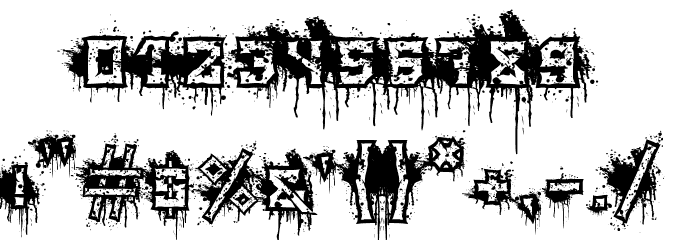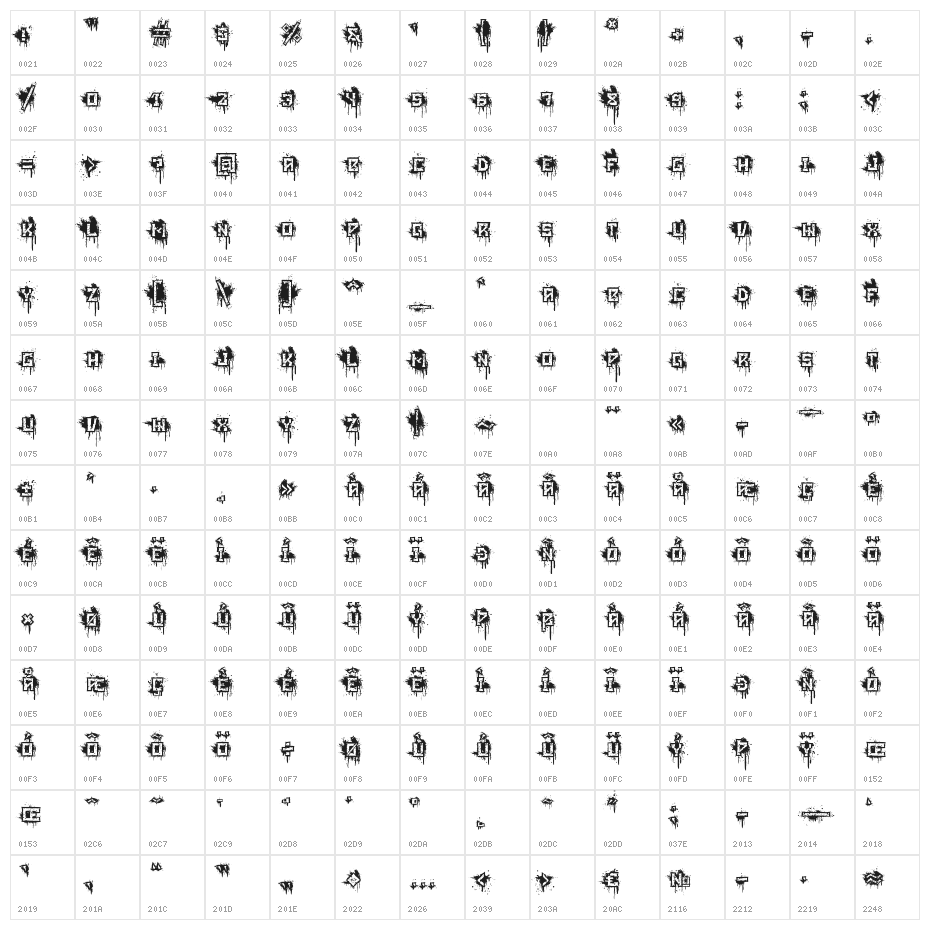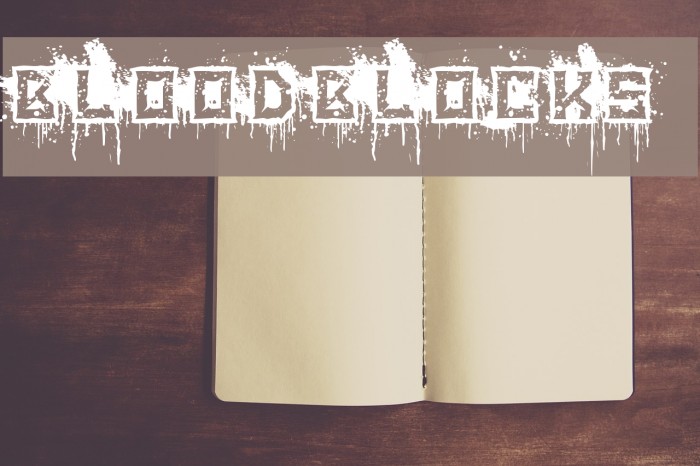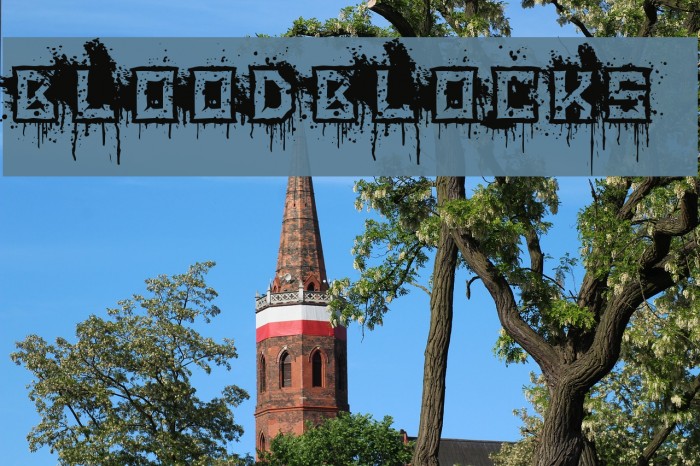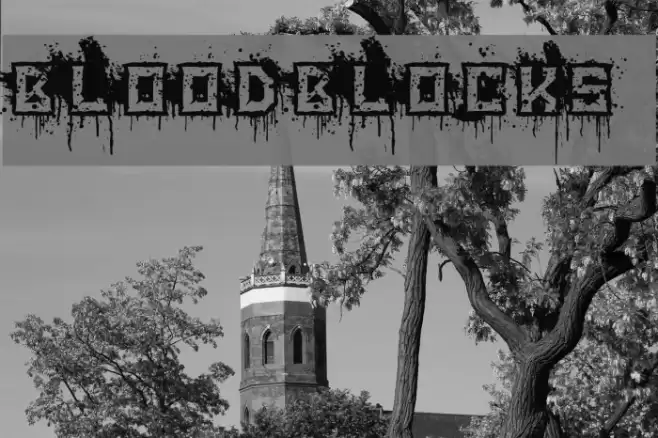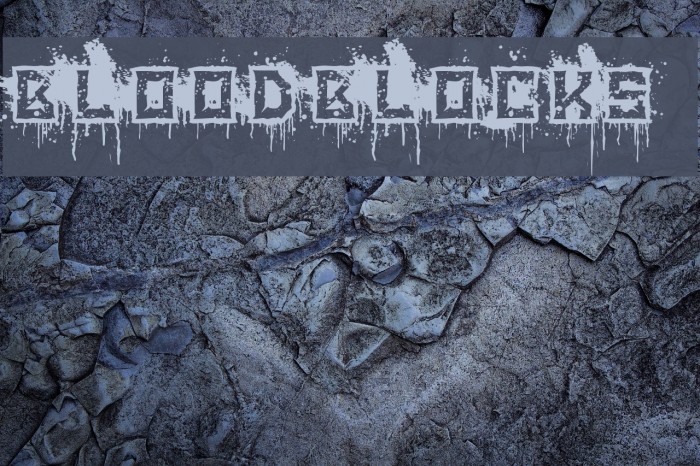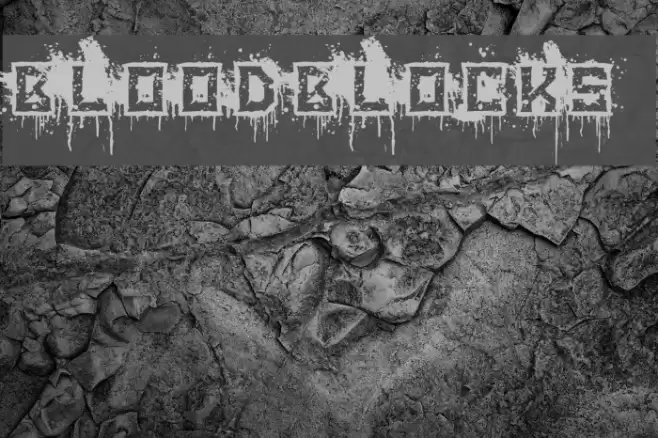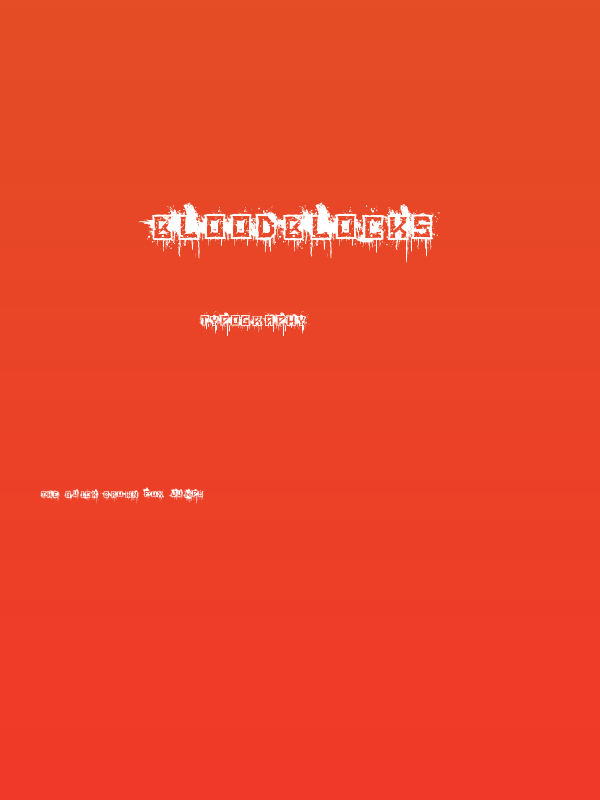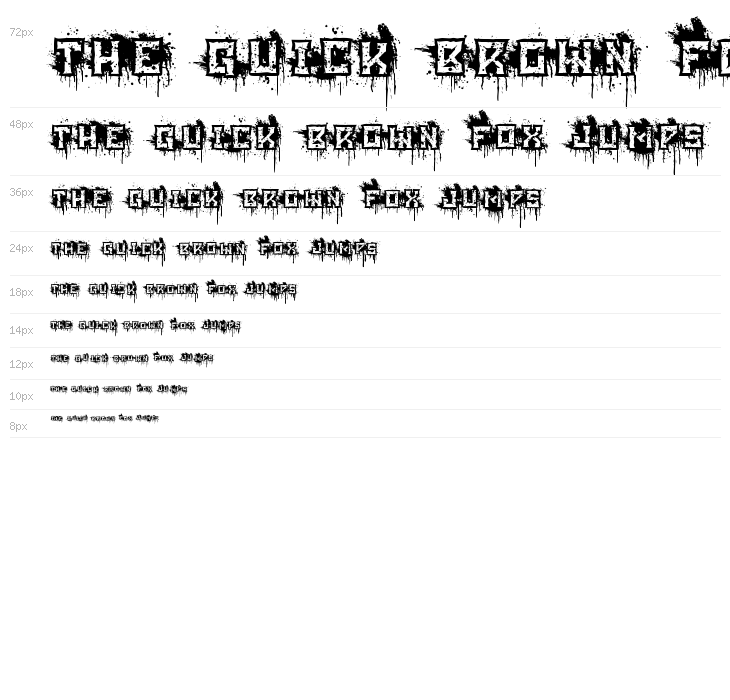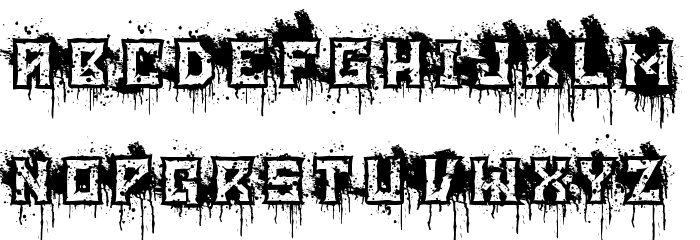
BloodBlocks Font
BloodBlocks Description
This font features a bold and edgy design with a dripping effect that gives it a grungy, horror-inspired aesthetic. The characters are blocky and angular, with sharp edges that enhance its aggressive appearance. The dripping elements add a chaotic and distressed look, making it ideal for projects that require a dramatic and intense visual impact. The uppercase and lowercase letters maintain a consistent style, while the numbers and special characters follow the same theme, ensuring a cohesive look across all text elements.
Proposed ProjectsIdeal for horror-themed posters, Halloween event flyers, video game graphics, and edgy album covers.